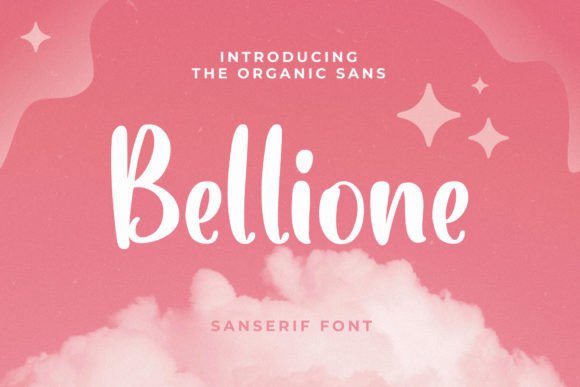
Bellione Font: The Epitome of Organic Handwritten Elegance
In the realm of typography, few fonts manage to capture the essence of handwritten authenticity as effortlessly as Bellione. This organic handwritten font is a masterclass in natural charm and warmth, making it an ideal choice for designers looking to infuse their projects with a touch of elegance and intimacy. With its fluid strokes and delicate curves, Bellione stands out as a unique and versatile typeface that can elevate a wide range of design applications.
The Characteristics of Bellione Font
Bellione’s design is rooted in the principles of organic typography. Each letterform is crafted with meticulous attention to detail, resulting in a font that exudes a sense of human touch. The fluid strokes and delicate curves of Bellione create a natural flow that is both soothing and visually appealing. This font’s unique characteristics make it perfect for designs that require a personal and intimate feel.
Fluid Strokes and Delicate Curves
One of the defining features of Bellione is its fluid strokes. Unlike rigid and mechanical typefaces, Bellione’s strokes are dynamic and expressive, giving the font a lively and energetic feel. The delicate curves that connect each letterform add to the font’s organic charm, creating a seamless flow that draws the reader’s eye.
Handwritten Authenticity
Bellione’s handwritten authenticity is one of its most compelling attributes. In an era where digital communication dominates, this font offers a refreshing respite from the monotony of digital typography. Bellione’s organic feel makes it an excellent choice for designs that require a personal touch, such as invitations, personal projects, and branding.
Use Cases for Bellione Font
Bellione’s versatility makes it suitable for a wide range of design applications. Here are some of the most popular use cases for this beautiful font:
Personal Projects
Bellione is an excellent choice for personal projects, such as photo albums, scrapbooking, and DIY crafts. The font’s organic feel and natural charm make it perfect for designs that require a personal touch.
Invitations and Stationery
Bellione’s elegant and intimate feel makes it an ideal choice for invitations, wedding cards, and stationery. The font’s fluid strokes and delicate curves create a beautiful and sophisticated look that is sure to impress.
Branding and Packaging
Bellione can also be used for branding and packaging designs that require a unique and memorable typography. The font’s organic feel and handwritten authenticity make it perfect for brands that want to stand out from the crowd.
Benefits of Using Bellione Font
There are several benefits to using Bellione font in your designs. Here are some of the most significant advantages:
Unique and Memorable
Bellione’s organic feel and handwritten authenticity make it a unique and memorable font. Using Bellione in your designs can help you stand out from the crowd and create a lasting impression.
Elegant and Intimate
Bellione’s elegant and intimate feel makes it perfect for designs that require a personal touch. The font’s fluid strokes and delicate curves create a beautiful and sophisticated look that is sure to impress.
Versatile
Bellione is a versatile font that can be used in a wide range of design applications. Whether you’re working on a personal project, invitation, or branding design, Bellione is an excellent choice.
In conclusion, Bellione font is a beautiful and versatile typeface that can elevate a wide range of design applications. With its fluid strokes, delicate curves, and handwritten authenticity, Bellione is perfect for designers looking to infuse their projects with a touch of elegance and intimacy. Whether you’re working on a personal project, invitation, or branding design, Bellione is an excellent choice.